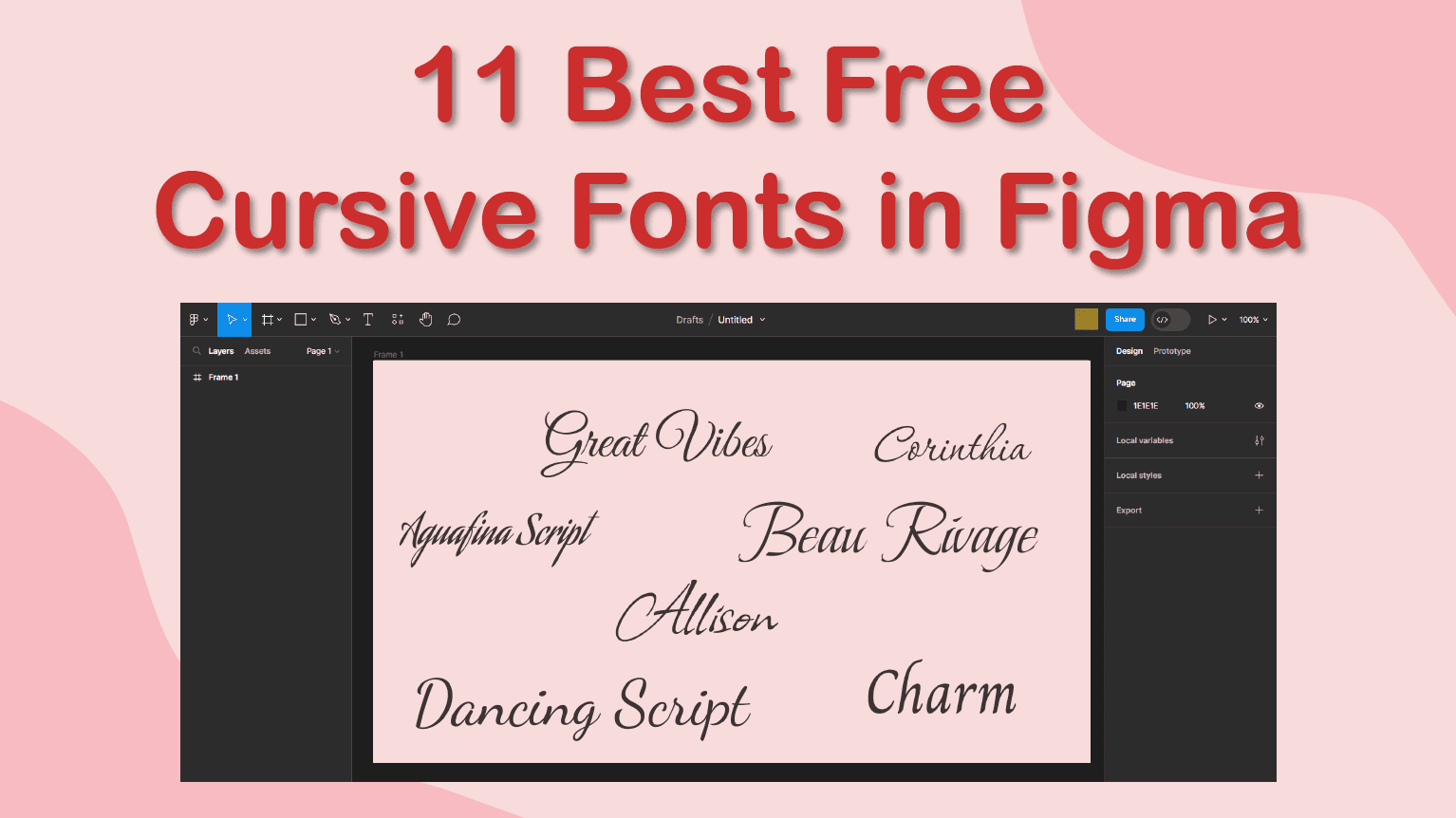
What Is Cursive Font In Adobe
The cursive font is a subset of the script font characterized by its general slant and connected characters If you want to know the difference among all the major font types read this article on the 5 different font styles
Explore Adobe Handwriting designed by Ernest March Frank Grie hammer Tiffany Wardle de Sousa at Adobe Fonts A handmade typeface with 3 styles available from Adobe Fonts for
Https fonts adobe fonts bickham script This script font has a lot of flourish and style This cursive font is really legible and I could see it working well at a small or large size